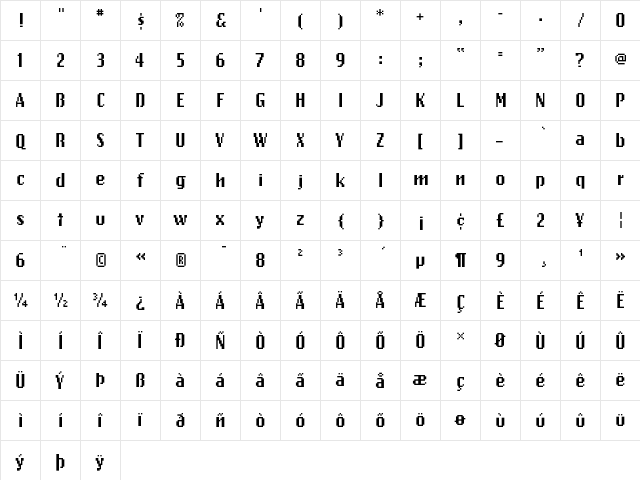
OaklandTen Regular
Design Context for OaklandTen Typeface
OaklandTen is a composed and adaptable typeface that performs quietly and consistently across a wide range of design contexts.